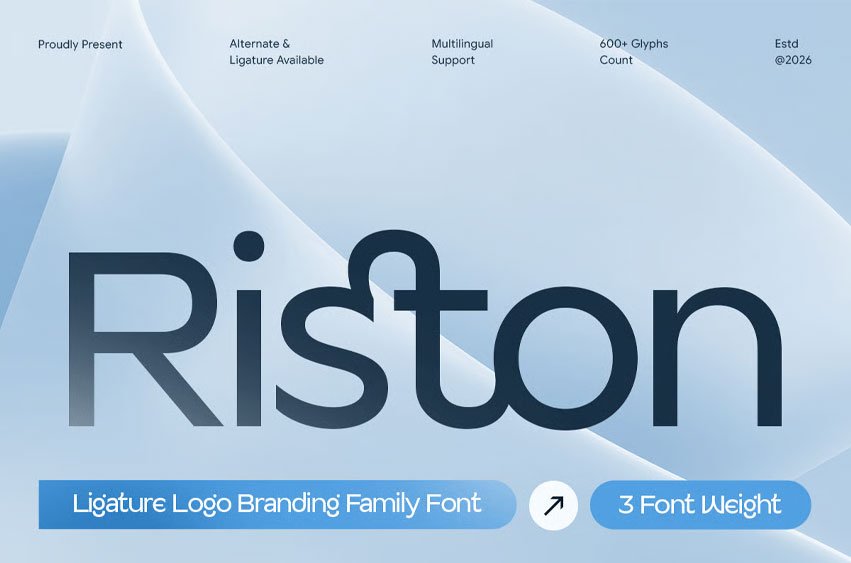
Riston Font is a modern ligature logo branding family font designed to deliver elegance, creativity, and a distinctive visual identity. Featuring stylish ligatures, refined letterforms, and a contemporary aesthetic, Riston is perfect for logo design, brand identities, editorial layouts, packaging, and premium creative projects.
Combining sophisticated typography with artistic ligature details, Riston creates a memorable and professional appearance. Its versatile family structure offers flexibility across various design applications while maintaining excellent readability and a unique branding character, making it ideal for agencies, boutique brands, beauty businesses, hospitality, and modern startups.
Riston – Ligature Logo Branding Family Font Features:
- Modern ligature style with elegant branding aesthetics
- Prepared with 3 weights: light, regular, and bold
- Unique letter combinations for distinctive logo creation
- Ideal for logos, brand identities, packaging, and editorials
- Font family with versatile weights and style variations
- Uppercase, lowercase, numerals, and punctuation included
- Perfect for boutique brands, agencies, hospitality, and creative projects
Create a refined and memorable brand identity with Riston – the ligature branding font family crafted for modern logo design.